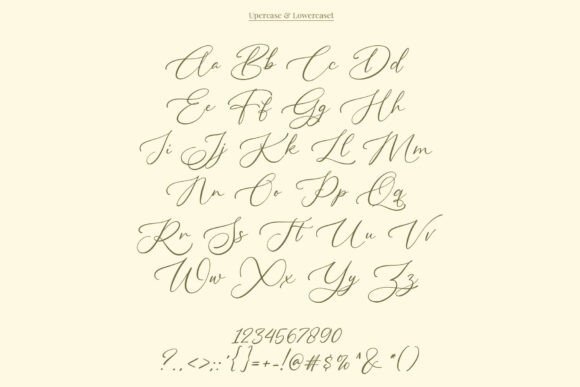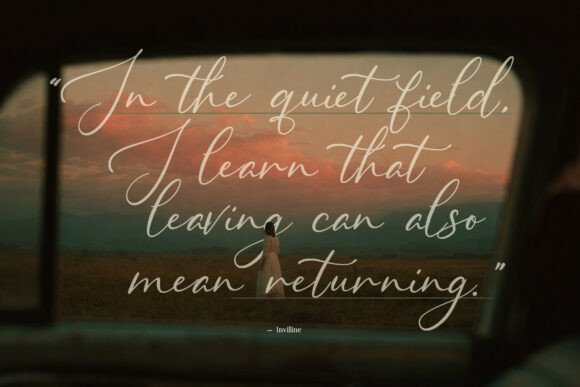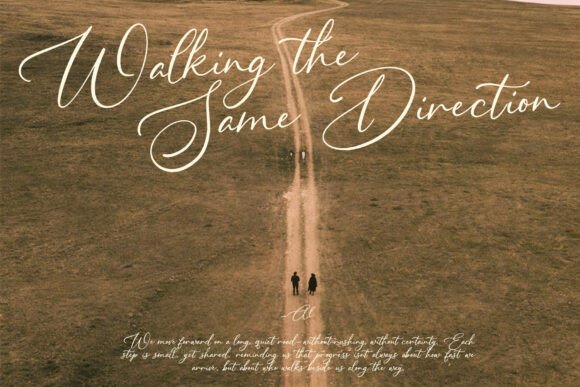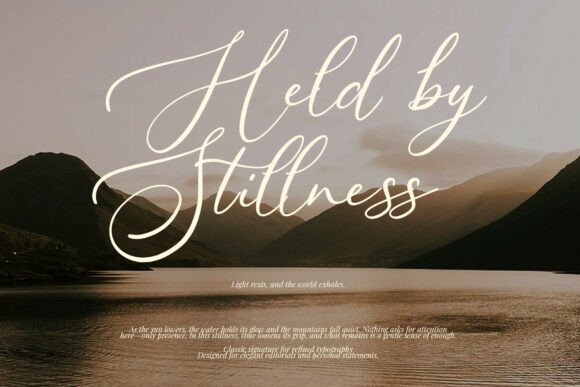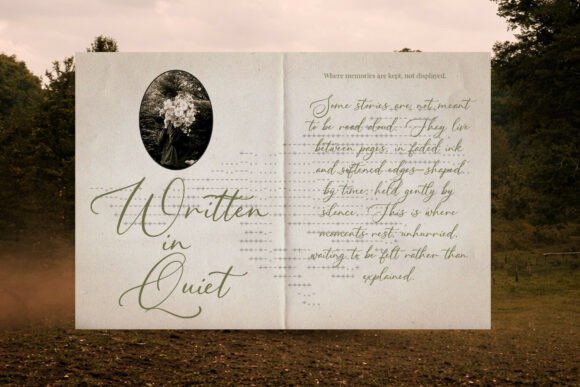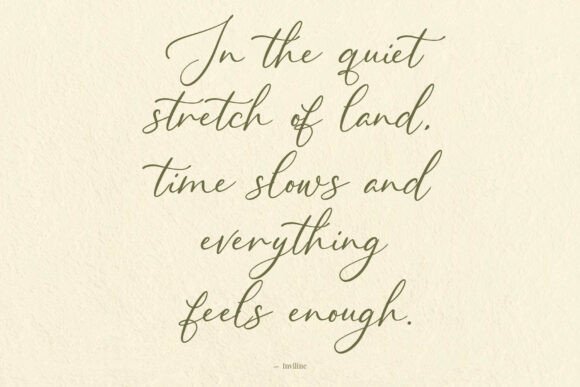
Discover the Timeless Elegance of Calyvera Font
As a designer, I’ve had my fair share of font hunting struggles. I recall working on a wedding invitation project, searching for the perfect script font to capture the couple’s elegant and whimsical style. After hours of browsing, I stumbled upon Calyvera – a beautifully crafted classic signature script font that stole my heart. In this article, I’ll share my experience with Calyvera, its features, and how to make the most of this stunning font.
A Personal Review of Calyvera
I’ve had the pleasure of working with Calyvera on several projects, and here’s what I love about it:
• ✨ Elegant and flowing strokes that exude sophistication
• ✅ Upper and lower cases, numbers, and punctuation for versatility
• 💫 Dainty flourishes that add a touch of whimsy and personality
• 🌈 Perfect for branding, editorial content, and high-end product labels
While Calyvera is an exceptional font, it’s not without its quirks:
• 🤔 Some characters may appear a bit narrow, requiring adjustments for optimal spacing
• ⚠️ Limited availability of stylistic alternates, which might limit creative experimentation
A Practical Guide to Using Calyvera
The Story Behind Calyvera
Calyvera’s design story begins with a passion for traditional calligraphy and lettering. Its creator, a skilled typographer, aimed to craft a font that would evoke the warmth and elegance of handwritten script. Inspired by classic calligraphy and the flowing strokes of copperplate writing, Calyvera was born – a font that embodies the perfect balance of structure and organic charm.
Author Inviline
What makes Calyvera unique? Calyvera’s unique blend of flowing strokes, dainty flourishes, and classic elegance sets it apart from other script fonts.
Does Calyvera support OpenType features? Yes, Calyvera supports OpenType features, including ligatures, stylistic alternates, and glyphs.
Is Calyvera available in multiple languages? Calyvera’s character set includes support for multiple languages, making it a versatile font for global projects.
Calyvera is a timeless, elegant font that embodies the beauty of human penmanship. With its flowing strokes, dainty flourishes, and classic sophistication, it’s perfect for designers, crafters, and creative hobbyists looking to add a touch of warmth and elegance to their projects. Whether you’re working on branding, editorial content, or high-end product labels, Calyvera is sure to make a lasting impression.